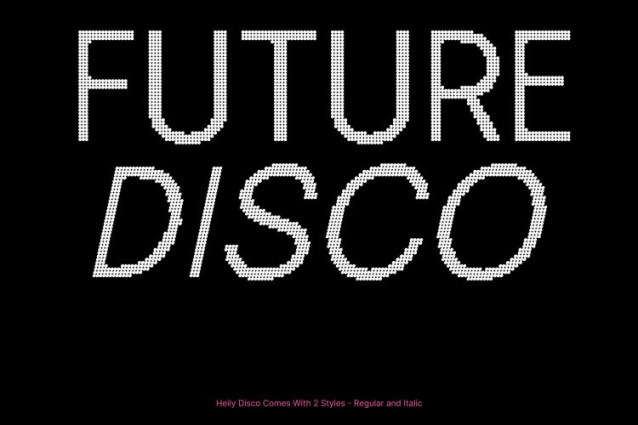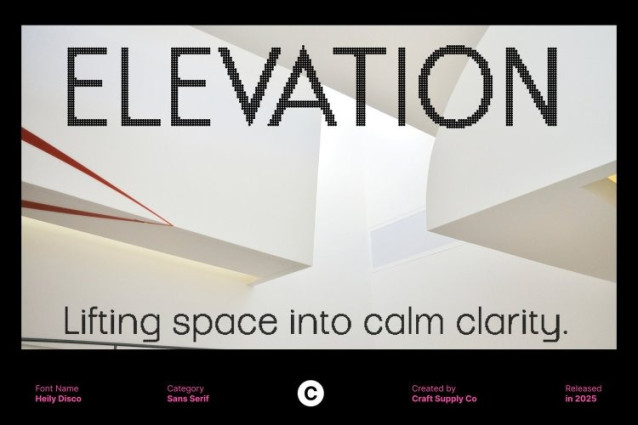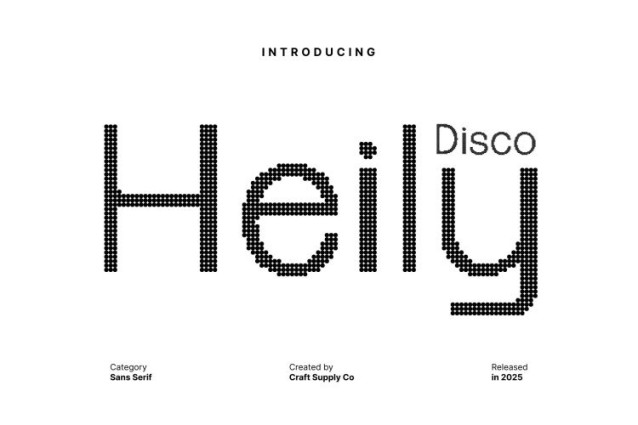
Heily Disco Font This modern sans serif font embraces the timeless qualities of grotesque typography balanced forms, geometric influence, and a straightforward structure. Its minimalist appearance ensures clarity and refinement, allowing each character to stand out with a clean and polished impression. This design approach creates a font that feels sophisticated, contemporary, and highly functional in a variety of visual contexts.
Disco Style for Vibrant and Energetic Expression
Infused with a lively disco aesthetic, this font delivers a burst of vibrant energy. The subtle stylistic accents inspired by disco culture add movement and flair to the letterforms, giving your designs a lively, dynamic rhythm. This bright and colorful personality makes it ideal for designs that aim to feel glamorous, festive, and full of life.
Clean Lines with a Glamorous Spark
Although rooted in minimalism, the font brings a sparkling twist through its disco character. This balance of clean construction and stylish flair creates a unique visual harmony modern yet playful, simple yet expressive. It offers the perfect blend for designers wanting a fresh and elegant look that still feels bold and captivating.
Perfect for Glittering and Glamorous Design Themes
With its versatility, this font shines in projects that require glamour, sparkle, and high-impact visuals. It works beautifully for event posters, fashion branding, party invitations, social media graphics, music-themed layouts, and promotional materials that demand eye-catching elegance.